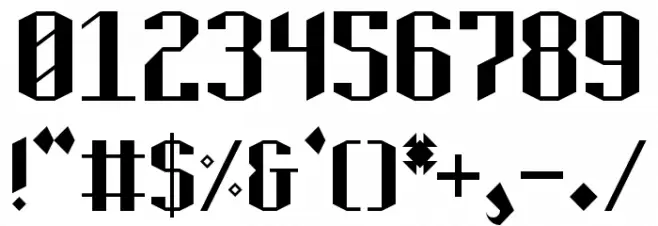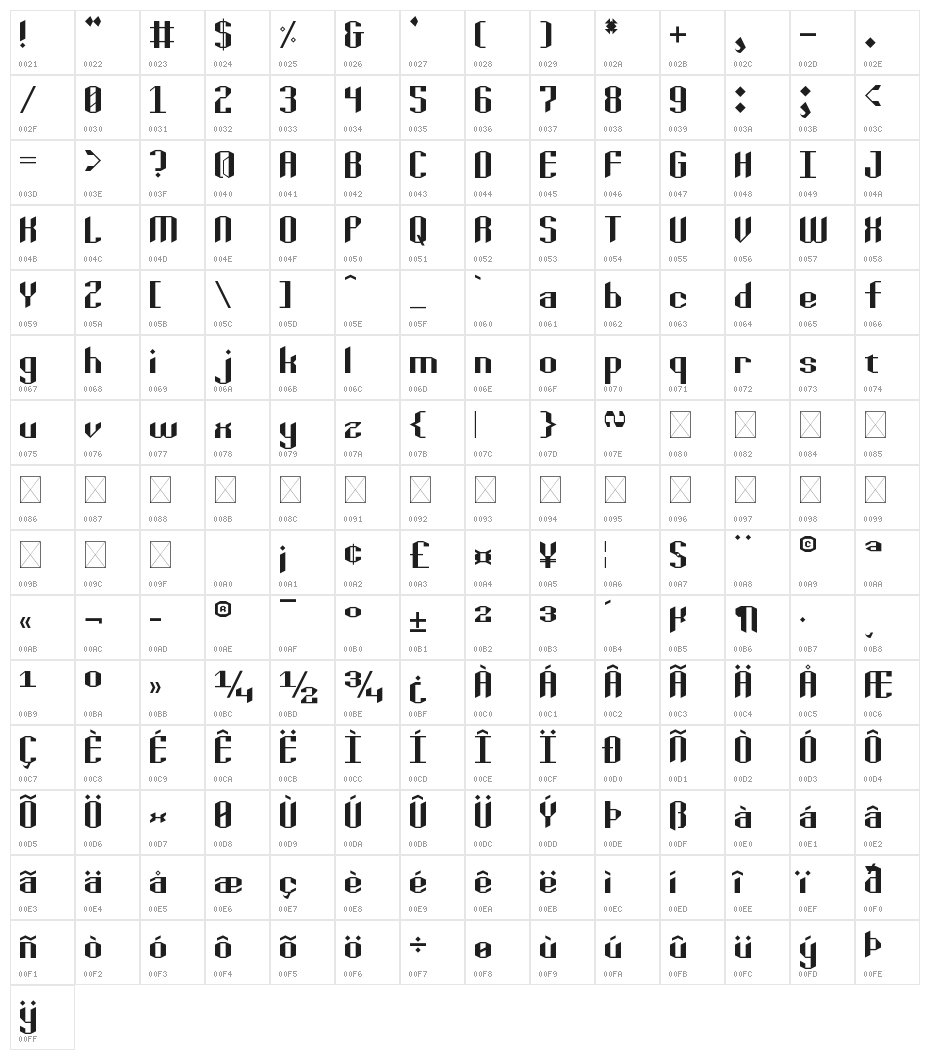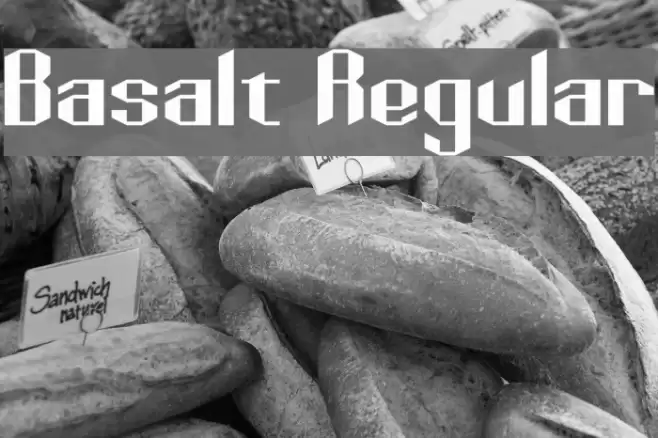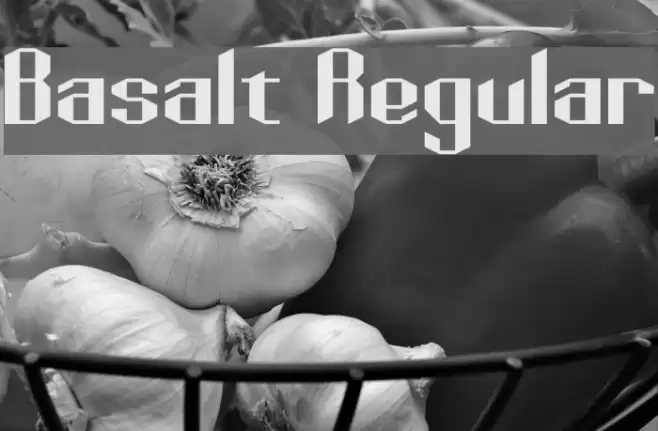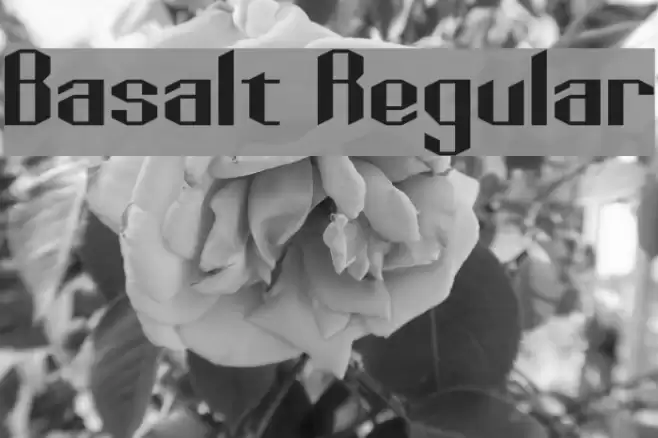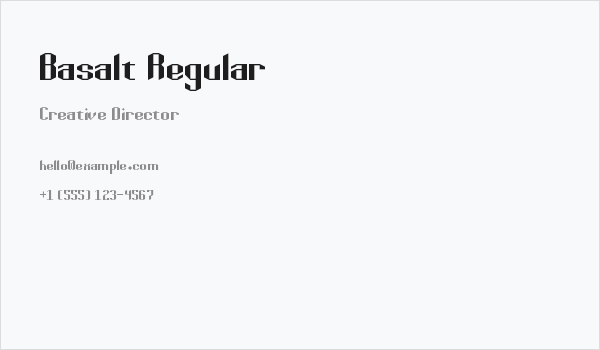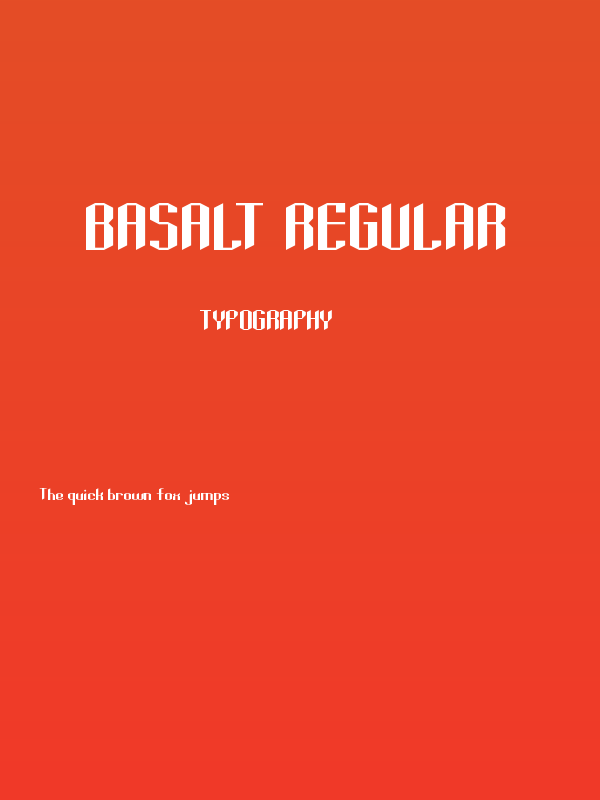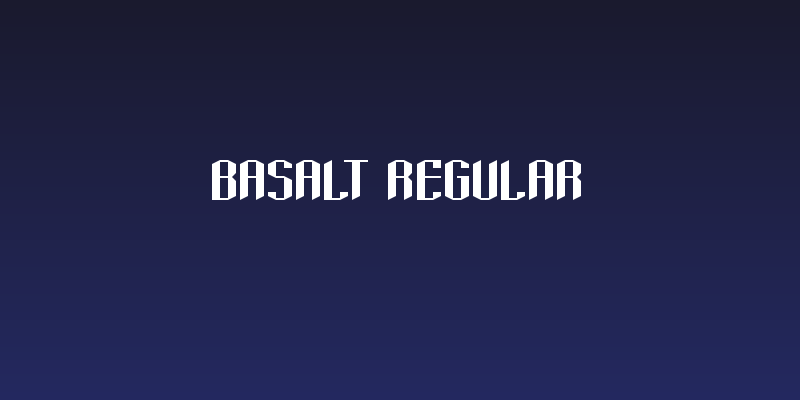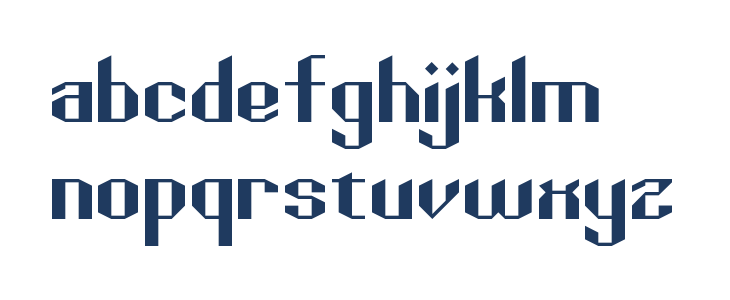
Basalt Regular Font
Basalt Regular Description
This font features a bold, geometric design with sharp angles and a modern aesthetic. The uppercase letters are particularly striking, with a strong presence and a unique style that blends elements of both modern and vintage design. The lowercase letters maintain the geometric theme, offering a cohesive look across different cases. Numbers and special characters are designed with the same attention to detail, ensuring consistency throughout. The font's boldness and angularity make it ideal for projects that require a strong visual impact.
| Proposed Projects | Ideal for branding, poster design, and any project needing a strong visual impact. |